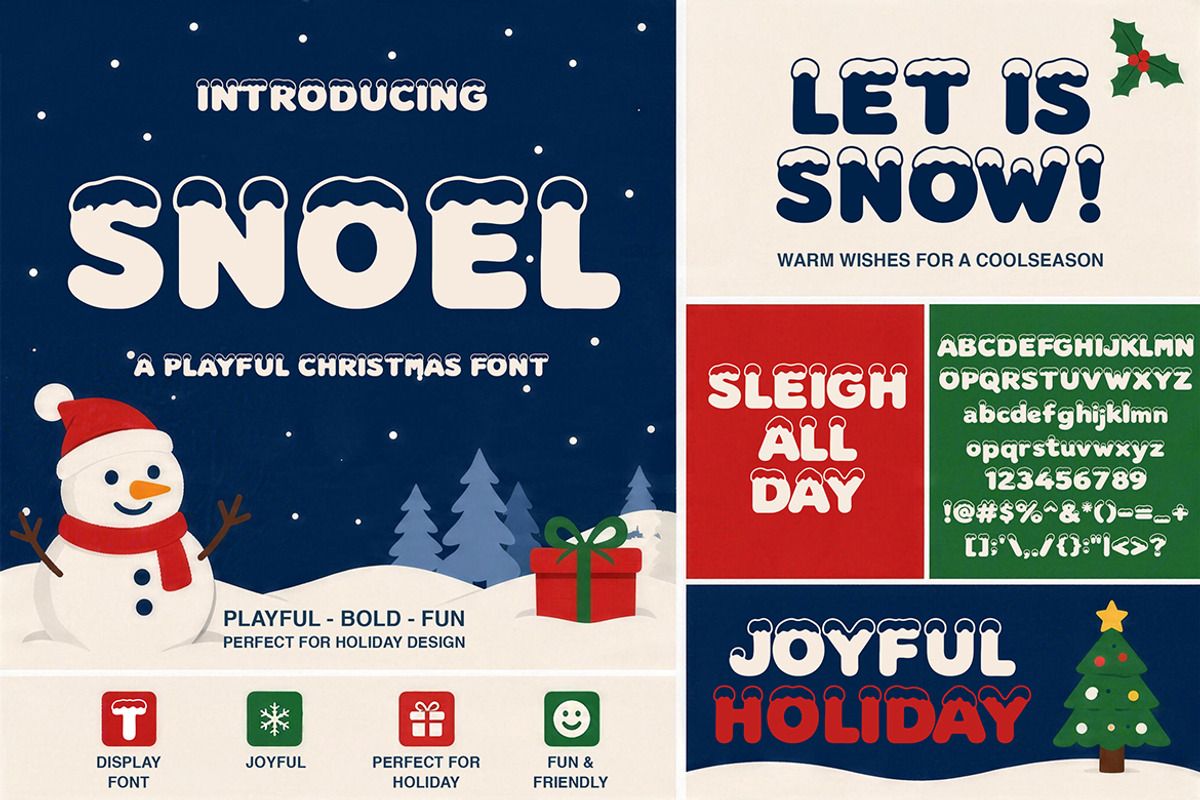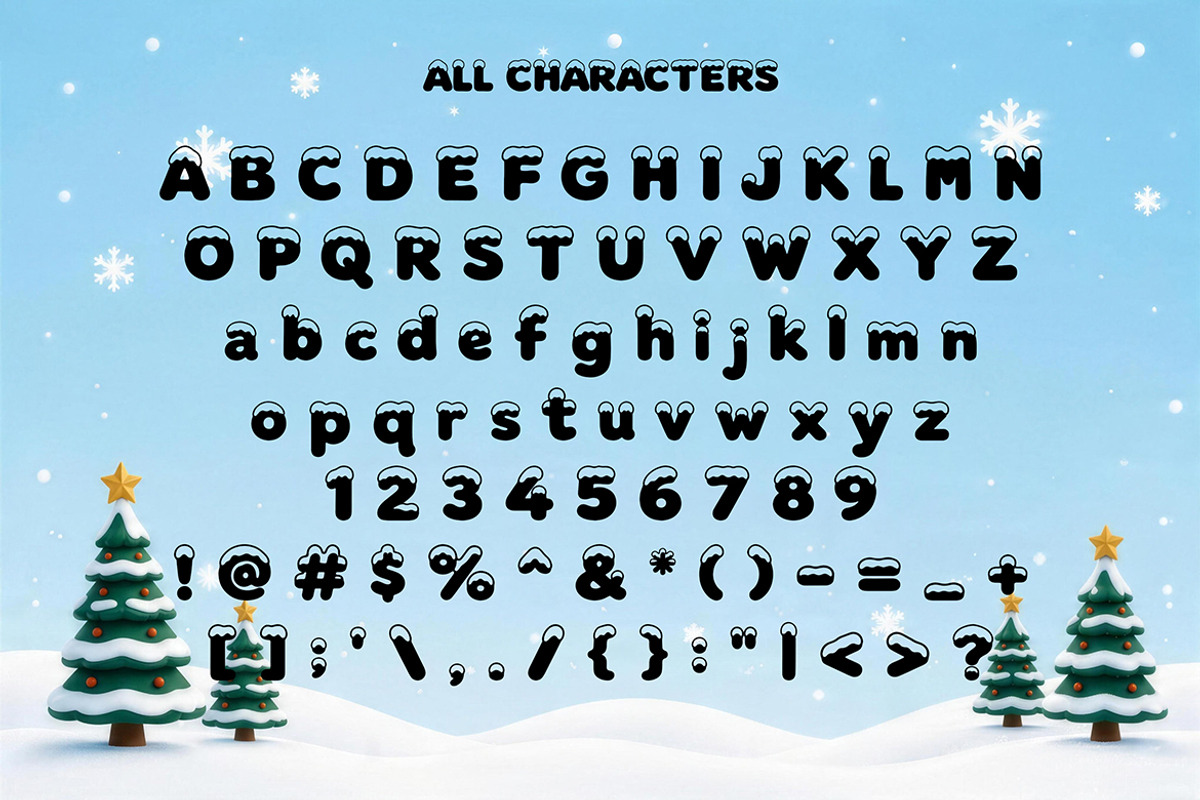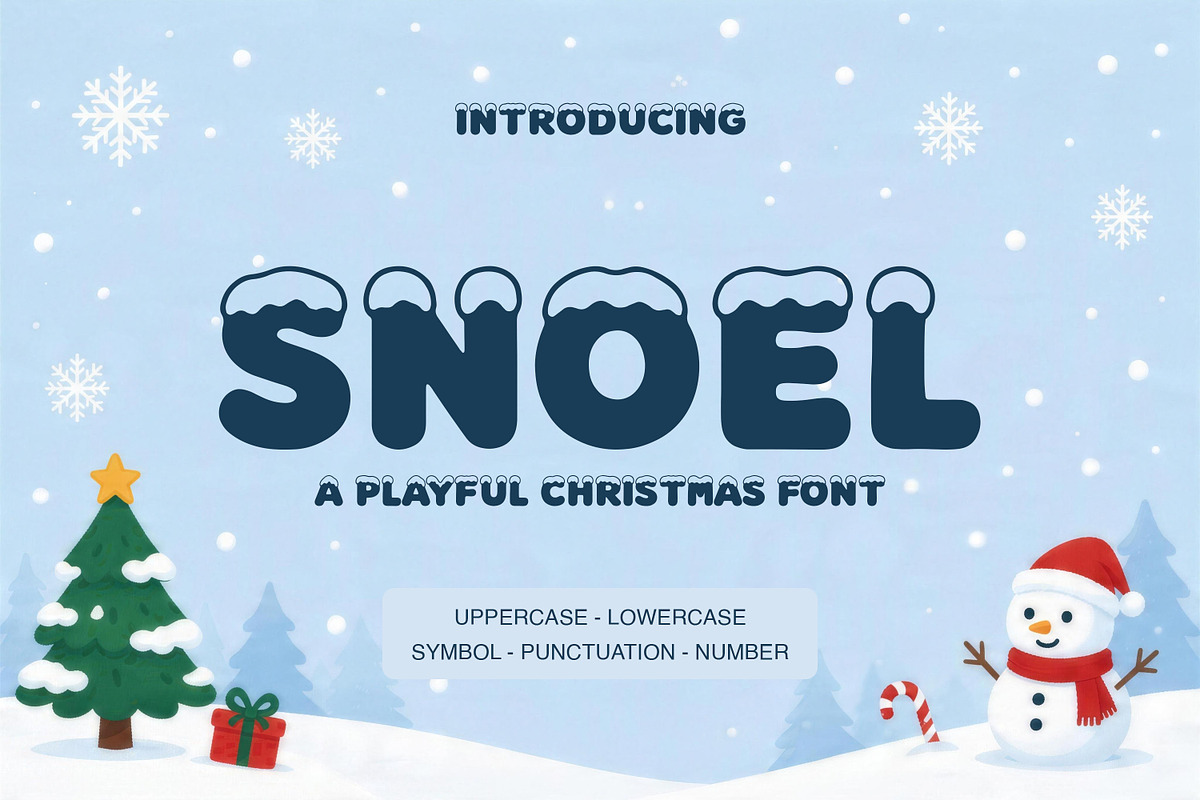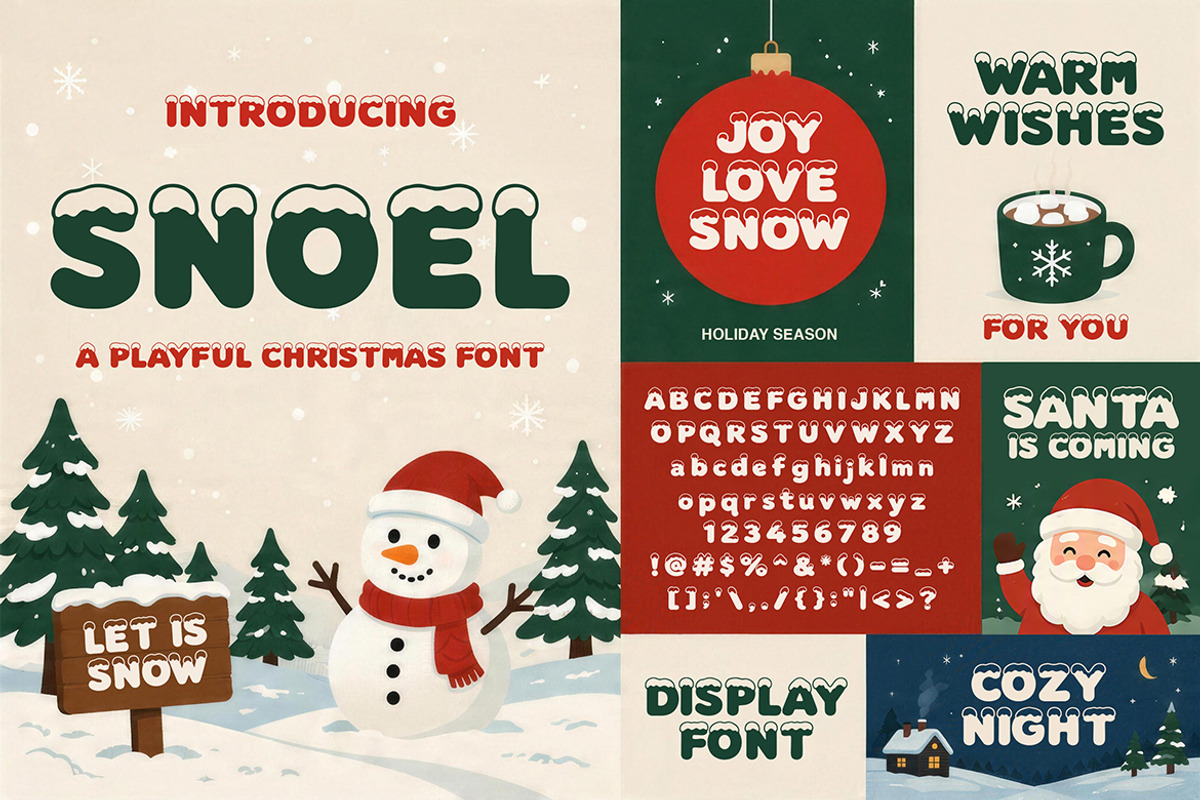
Snoel - Playful Christmas Font
Snoel is a playful Christmas display font with bold rounded letterforms and a charming snow-covered style. Designed to capture the cheerful spirit of the holiday season, Snoel brings a fun, friendly, and festive personality to seasonal typography. With uppercase, lowercase, numbers, symbols, and punctuation, this font is perfect for creating joyful Christmas designs that feel warm, memorable, and full of character.
* Christmas cards and holiday greetings
* Festive posters and seasonal promotions
* Gift packaging and product labels
* Kids and family holiday projects
* Social media and Christmas branding
Snoel is a cheerful holiday display font made to bring playful winter charm and festive personality to your Christmas creative projects.